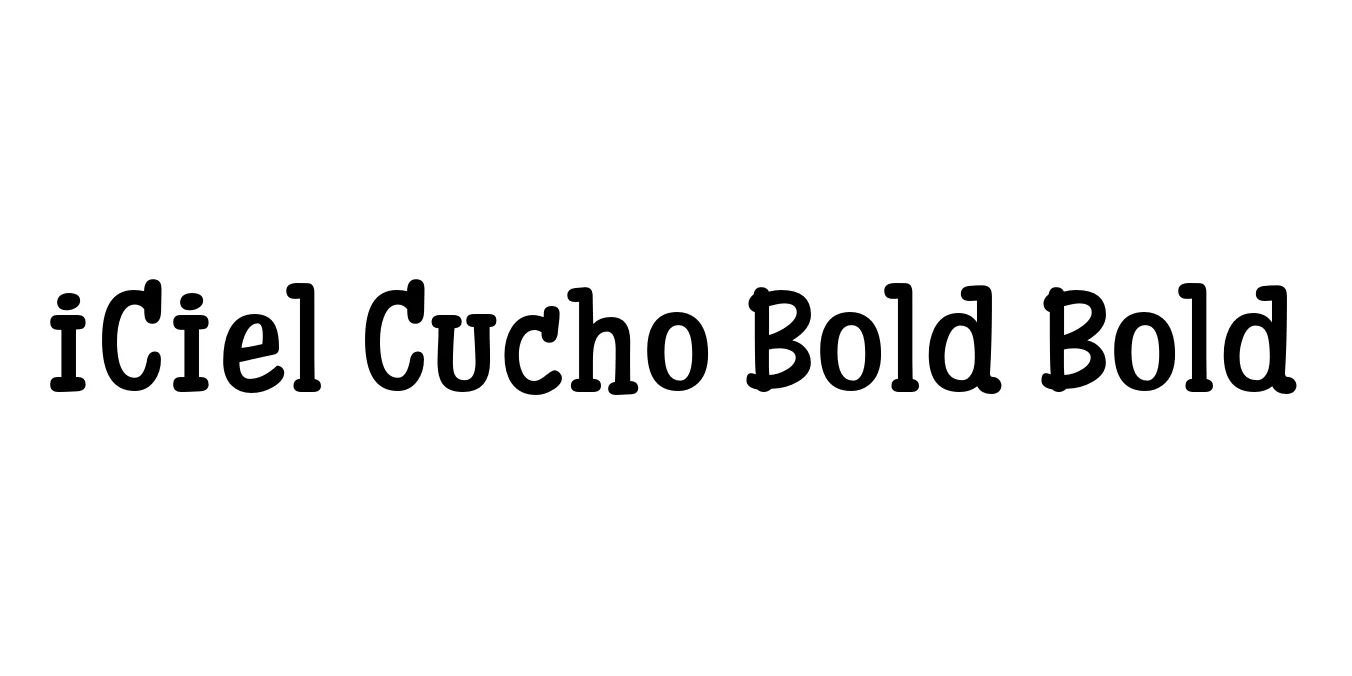
iCiel Cucho Bold Bold
Designed by Carlos Mañas (iCiel Localization)
| Category | Display Serif |
| Designer | Carlos Mañas (iCiel Localization) |
iCiel Cucho Bold is a charming and playful display typeface that captures a unique sense of hand-drawn character. Originally designed by Carlos Mañas and later localized with expanded Vietnamese support by iCiel, this font features soft, rounded terminals and chunky letterforms that provide a friendly and approachable aesthetic. Its thick weights and organic curves make it an excellent choice for projects requiring a touch of warmth and whimsical personality.
The typeface is highly versatile within creative niches, often utilized for children's books, food packaging, and bold editorial design. Its high legibility despite its heavy weight allows it to function effectively in both large-scale headlines and medium-length subheadings. Whether used for festive branding or casual social media graphics, iCiel Cucho Bold stands out for its perfect balance between professional craftsmanship and a fun, handmade feel.
iCiel Cucho Bold Bold Best Uses
Ideal for candy, toys, and snacks targeting young audiences.
Great for eye-catching event announcements and vibrant titles.
Perfect for friendly, approachable logos and corporate personalities.
Well-suited for children's book covers and whimsical interior layouts.